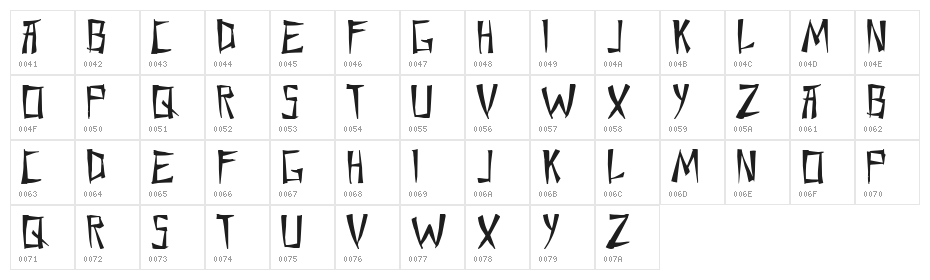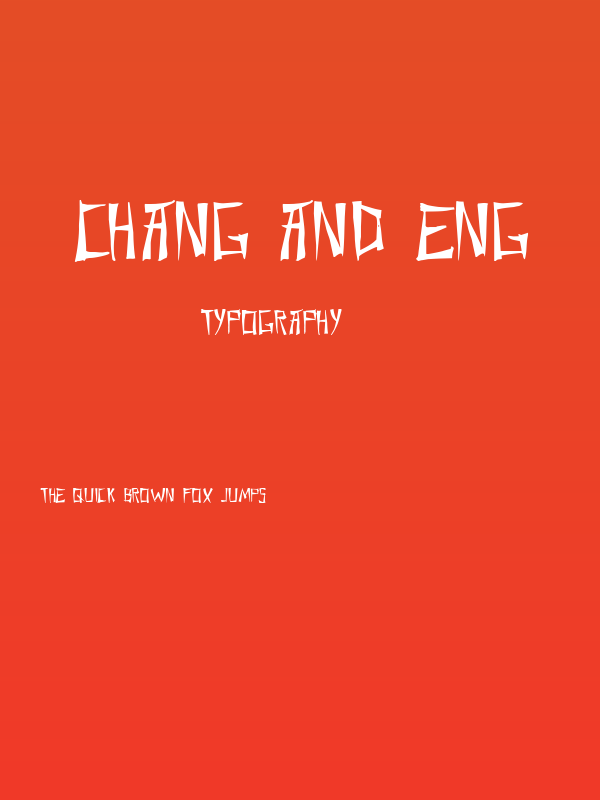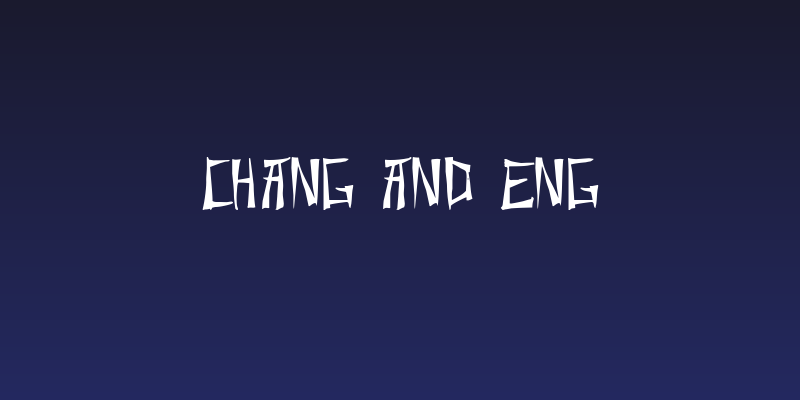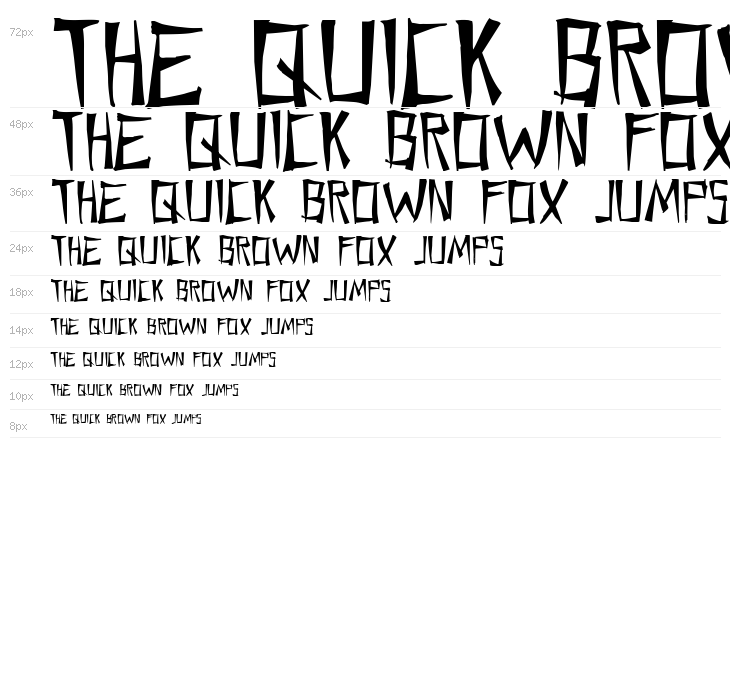
Chang and Eng Font
Chang and Eng Description
This font features a bold and edgy design with sharp, angular lines that give it a distinctive, almost aggressive appearance. The characters are tall and narrow, with exaggerated serifs and a slightly irregular form that adds to its unique style. The uppercase letters are particularly striking, with a strong presence that commands attention. The lowercase letters maintain the same angular aesthetic, ensuring consistency across the typeface. The numbers are similarly styled, with a boxy, geometric look that complements the overall design. This font is perfect for projects that require a bold statement or a touch of modern, avant-garde flair.
| Proposed Projects | Ideal for album covers, posters, branding for edgy or modern products, and any design needing a bold statement. |